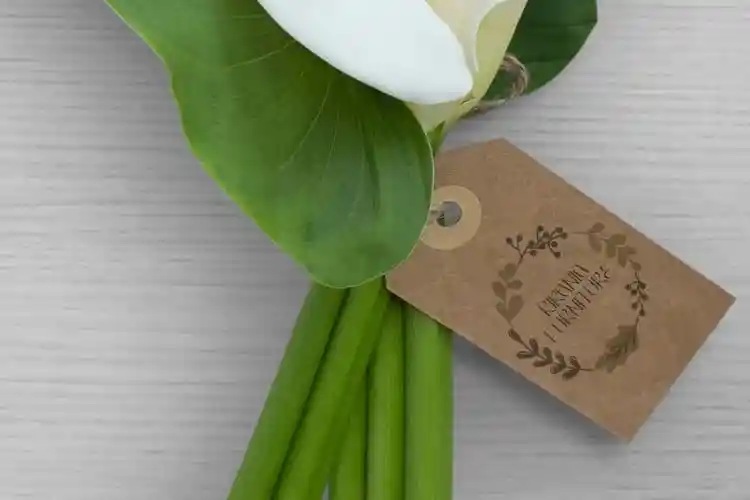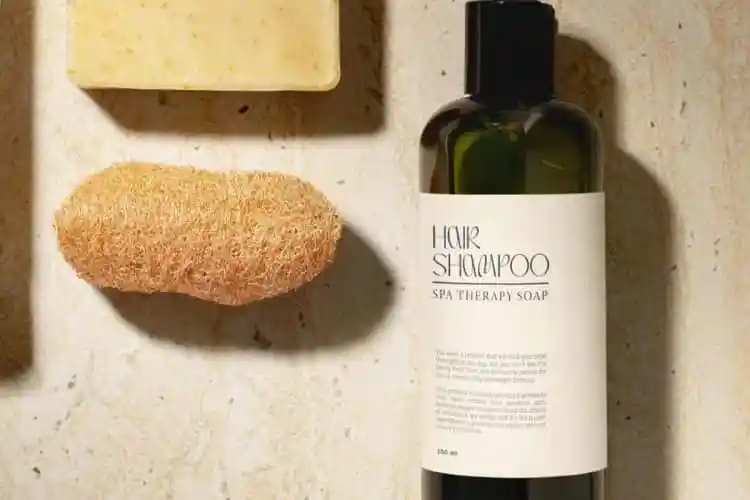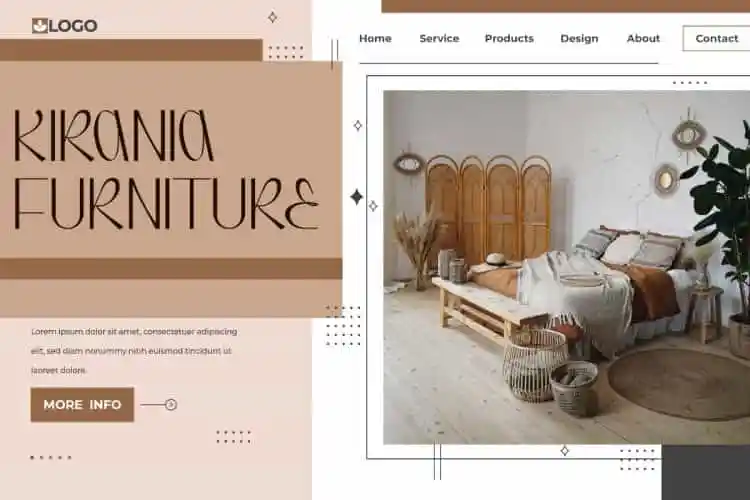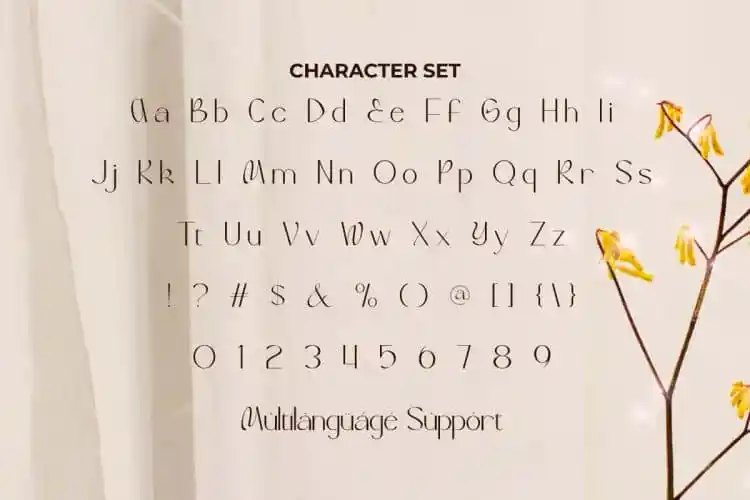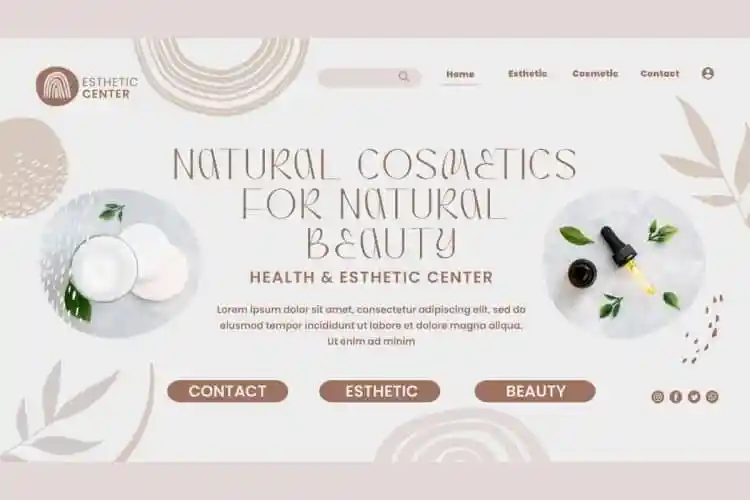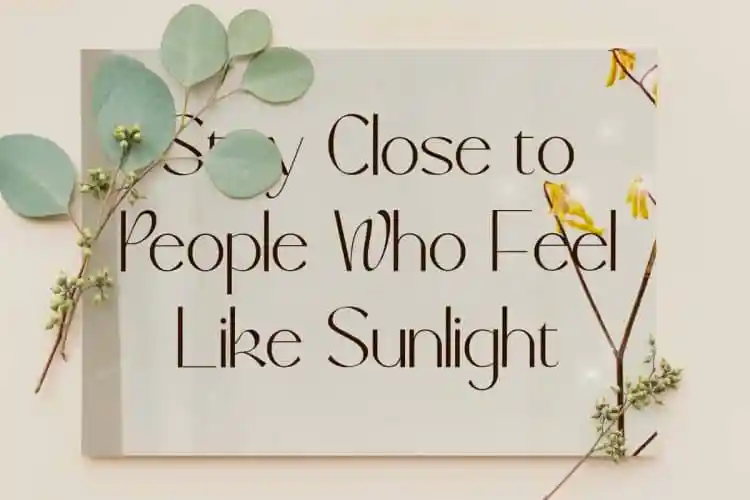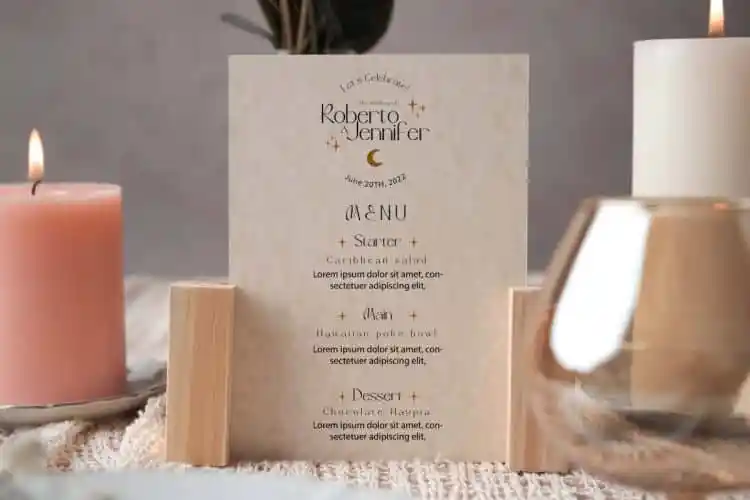
Bracella Font is a modern display font that will create a charming and sophisticated impression. Its sleek letters with graceful curves give a special feel to whatever your design is, such as apps, brochure, business card, cover, flyer, greeting card, screen print, signage, sticker, title, watermarks, website header, and much more.
Bracella Font is an elegant typeface with beautifully crafted letter characters display to balance classic elegance and modern innovation in one. Comes with a complete set of Uppercase and Lowercase Letters, Numbers, Punctuation and Symbols. It’s perfect for ads, gifts and author, content creator, craft, fashion, furniture,merchandise, graphic design, home decoration, printing, publishing, restaurant, skincare, spa salon, web designer, wedding organizer, writer, etc.
Bracella Font also supports multilingual characters which are ready to use either on Windows or Mac machines with a simple installation. Combine different characters for a bespoke, handcrafted feel. All of these characters are available through the glyph panel, moreover each letter has its own unicode (PUA) so you can access all the characters easily,Contact us if you have any questions.